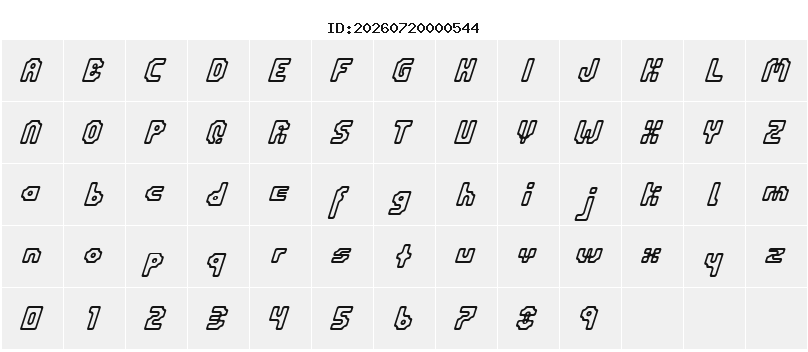
Eniltuo Preview
• Font Name: Eniltuo
• Font ID: Eniltuo
• Full Font Name: Eniltuo
• PostScript Name: Eniltuo
About Eniltuo.ttf
Eniltuo.ttf is a modern, elegant sans-serif font designed for ultimate readability and visual harmony. Perfect for branding, headlines, web design, and print materials.